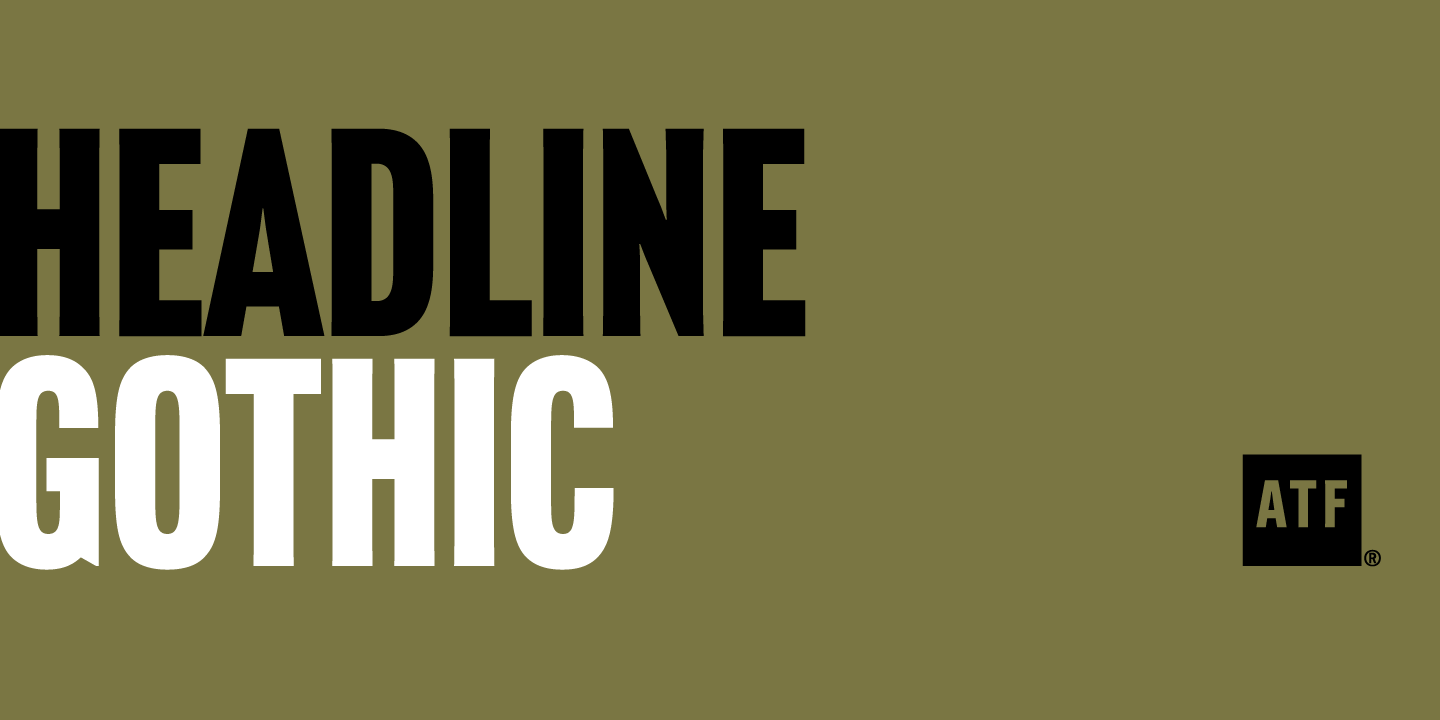
ATF Headline Gothic Font is perfect for newspaper mastheads, magazine headlines, vintage advertising posters, retro brand identities, classic movie titles, traditional print layouts, heritage publication designs, historical museum displays, period-appropriate signage, and authentic americana graphics.
ATF Headline Gothic Font is exciting because it embodies the commanding authority and timeless impact of classic American newspaper typography through its bold letterforms that capture the golden age of print journalism, creating an immediate sense of credibility and traditional publishing excellence.
The ATF Headline Gothic Font family includes Regular, Bold, Condensed, Extended, Light, and Heavy variants, each maintaining the distinctive classic character while offering different weights and proportions for traditional headline design applications.
Command attention with the authority of classic typography using ATF Headline Gothic Font Free Download. This distinguished typeface brings the commanding presence and editorial authority of traditional American newspaper design into contemporary projects, featuring letterforms that embody the credibility and impact of the golden age of print journalism. The font's bold character and historic authenticity make it perfect for publications, heritage brands, and organizations seeking to communicate trustworthiness, tradition, and the timeless authority of established media.
ATF Headline Gothic Font excels in editorial and heritage applications where authority and traditional credibility are paramount. Its distinctive character draws directly from the rich tradition of American newspaper typography, making it ideal for publications, news organizations, and heritage brands targeting audiences who appreciate journalistic integrity, traditional craftsmanship, and the enduring power of authoritative communication.
The development of ATF Headline Gothic Font involved meticulous restoration of classic American Type Founders specimens, ensuring each character maintains the authentic proportions and commanding presence that made these designs so effective in traditional newspaper environments. This historical accuracy creates letterforms that feel genuinely connected to the golden age of American journalism and print media excellence.
For designers working with publications, heritage brands, or traditional media organizations, ATF Headline Gothic Font provides unmatched historical authenticity and editorial authority. It pairs powerfully with classic design elements, complements traditional publishing layouts, and adds instant credibility to projects requiring genuine journalistic gravitas and traditional media authority.
Whether you're creating newspaper designs, magazine layouts, heritage brand identities, or traditional media campaigns, ATF Headline Gothic Font delivers the authoritative editorial voice that resonates with readers who value journalistic tradition and established media credibility. Its combination of historical authenticity and commanding presence makes it an essential tool for projects requiring the ultimate in traditional publishing authority and classic American typography excellence.